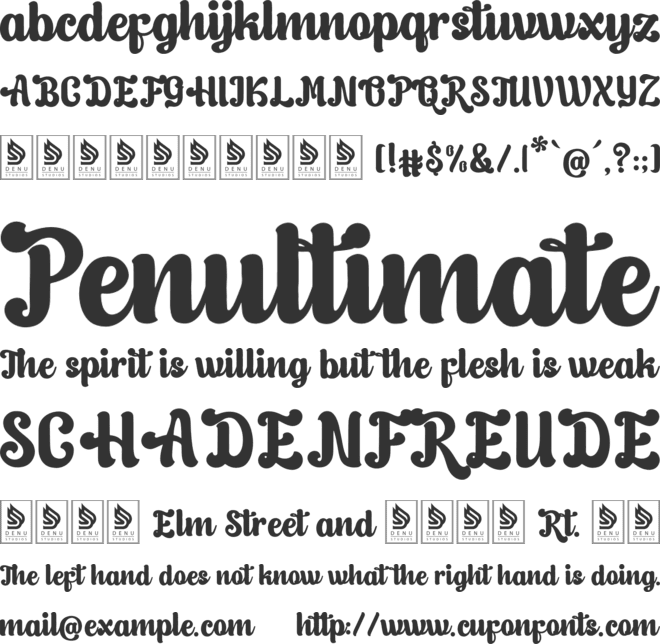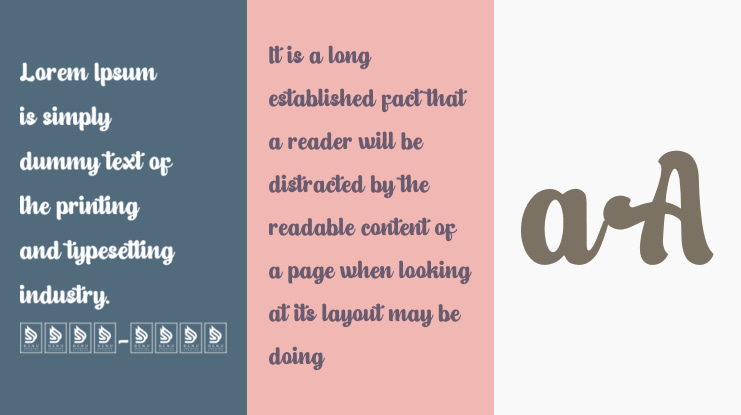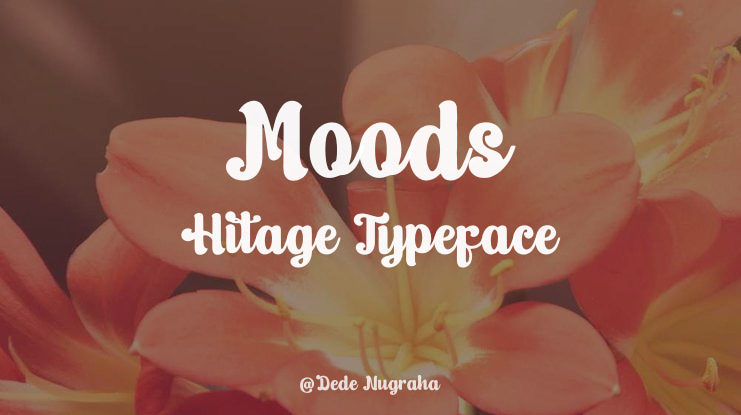
Moods Hitage | Retro Bold Script product packaging, mugs, quotes, posters, shopping bags, t-shirts, book covers, name card, invitation cards, greeting cards, label, photography, watermark, special events, and all your other lovely projects that need a Retro Bold Script taste.